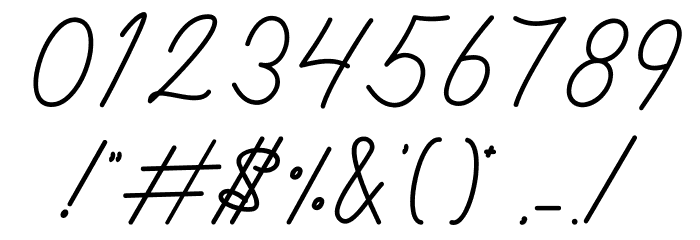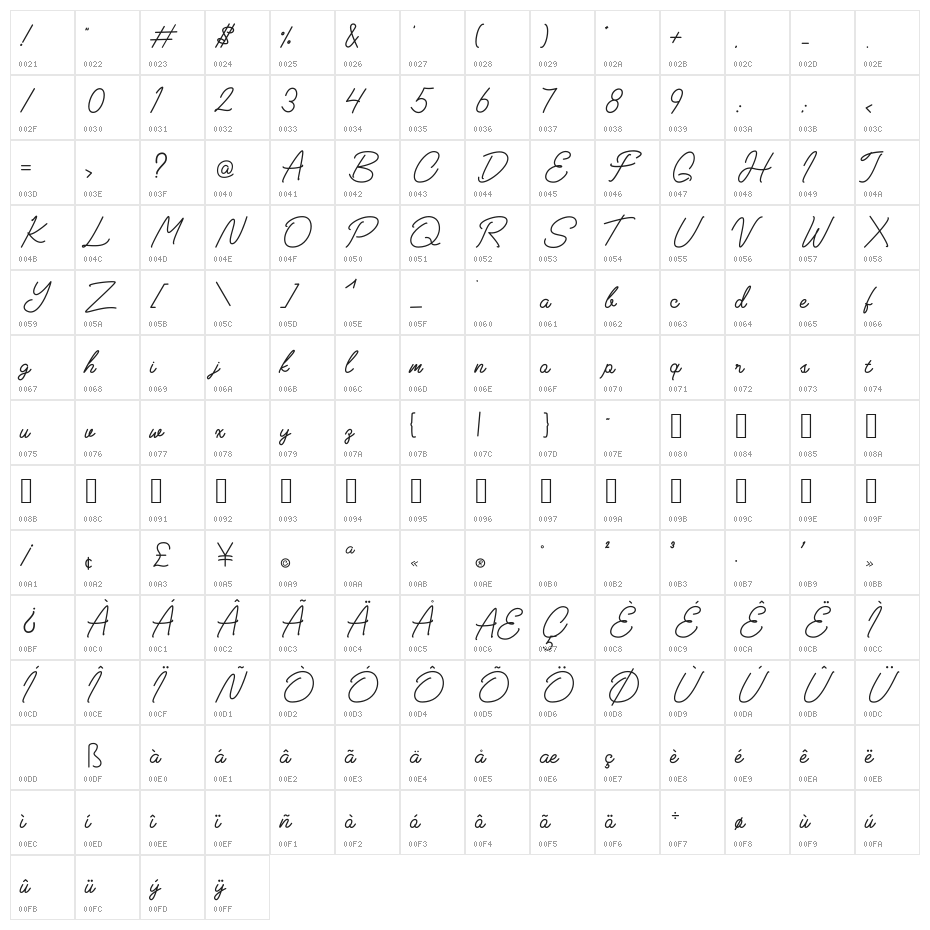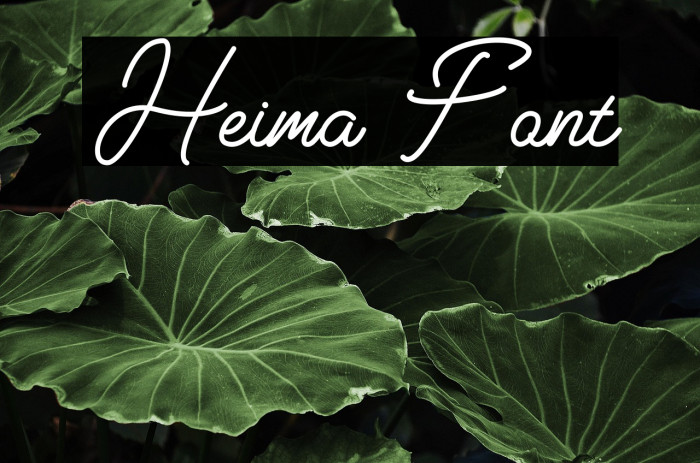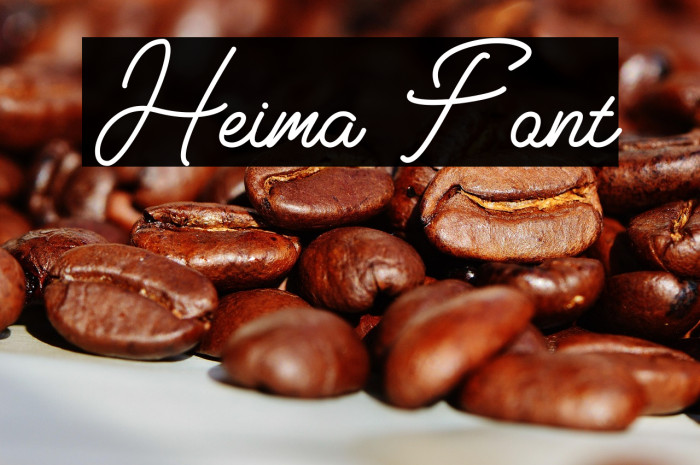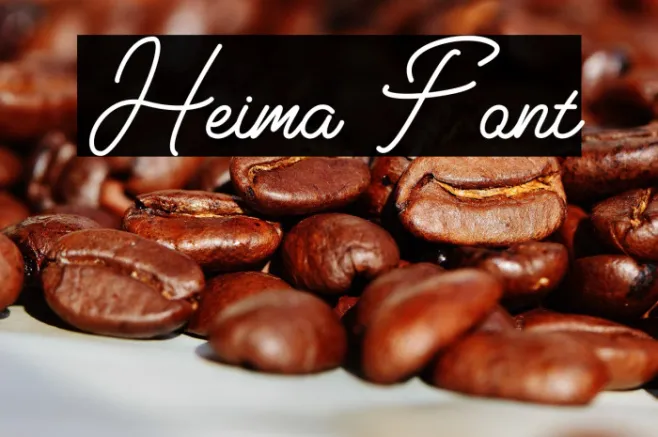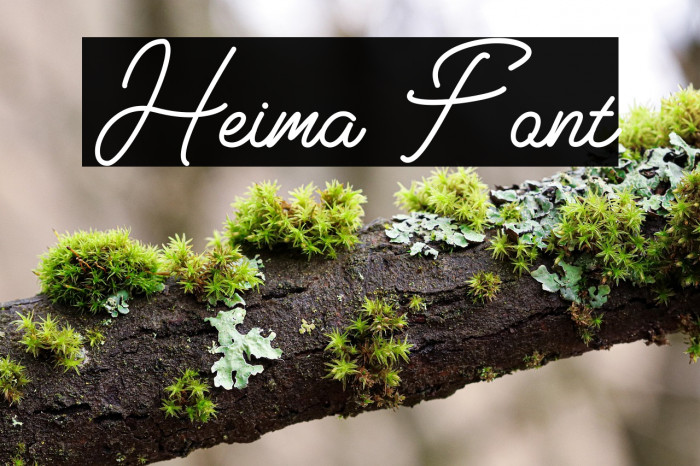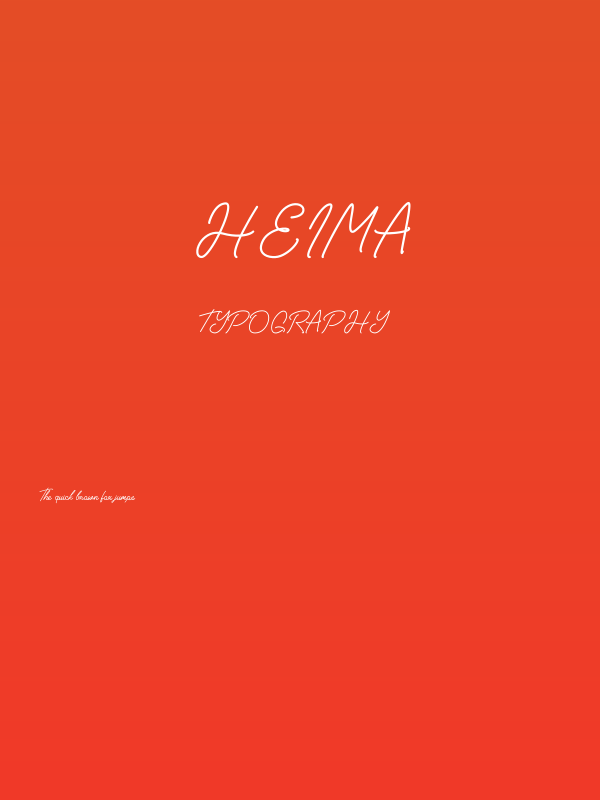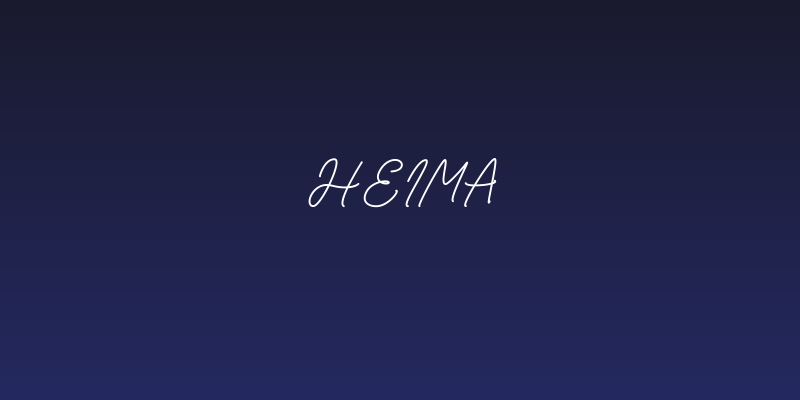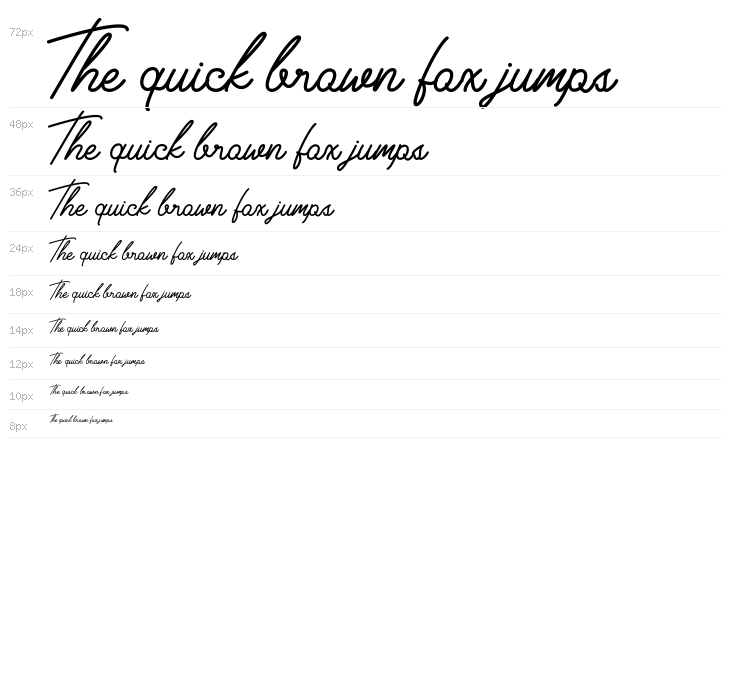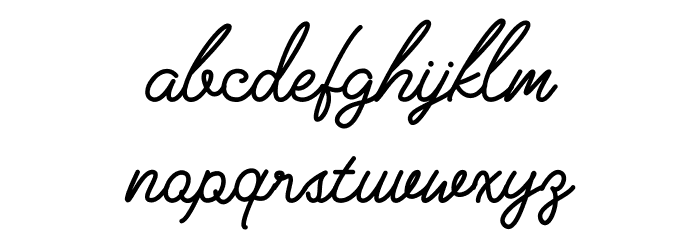
This font features a fluid, cursive style with a handwritten appearance. The uppercase letters are elegantly connected, providing a seamless flow that mimics natural handwriting. The lowercase letters maintain a consistent slant and are slightly more compact, enhancing readability while preserving the script's graceful nature. The numerals are distinct yet harmonious with the overall design, featuring smooth curves and a balanced structure. Special characters are thoughtfully integrated, maintaining the font's cohesive aesthetic. This font exudes a personal touch, making it ideal for projects that require a humanistic and approachable feel.
| Overall Style | Handwritten |